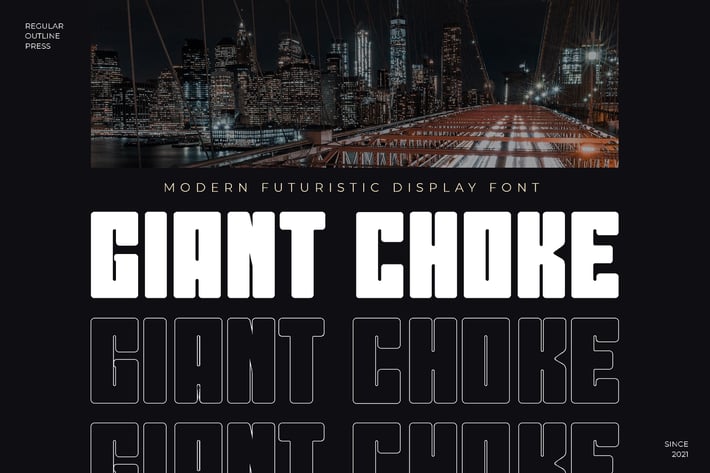
Giant Choke Modern Business Font
Giant Choke is elegant modern display font family. It can easily be matched to an incredibly large set of projects for your company/ corporate, so add it to your creative ideas and notice how it makes them stand out!